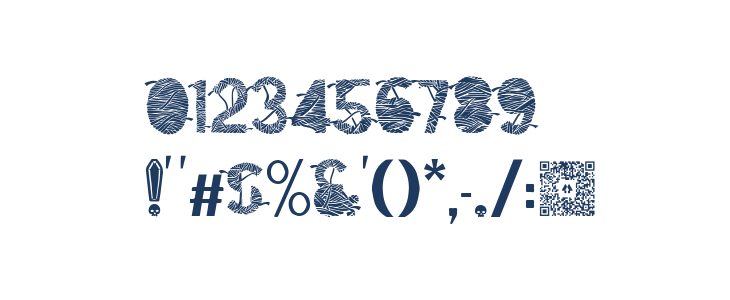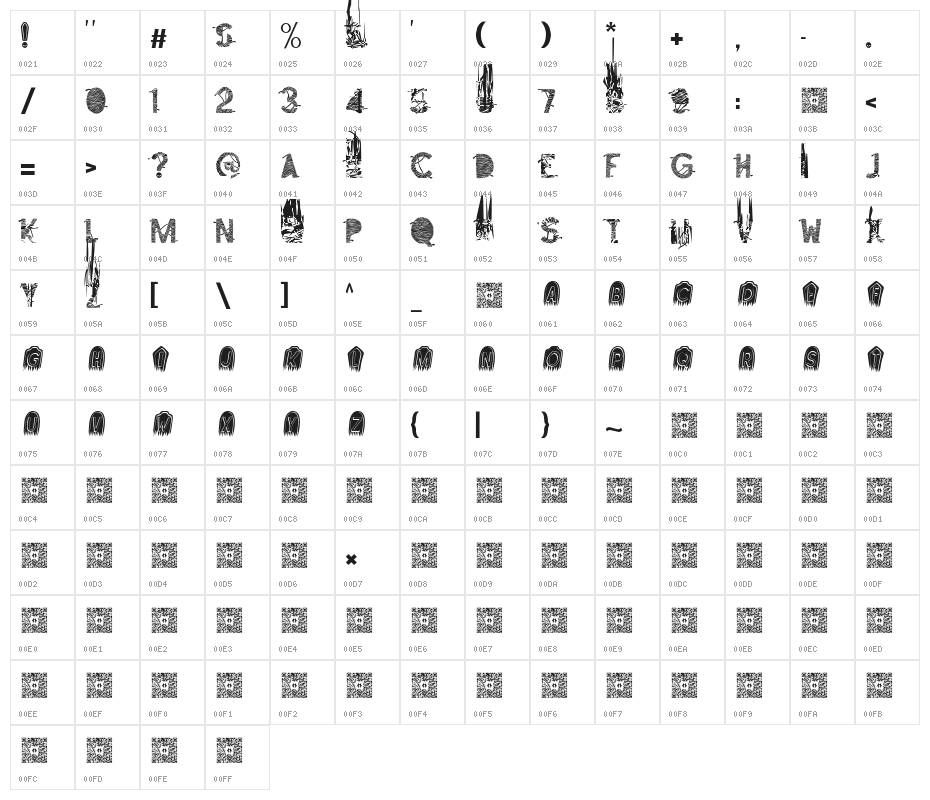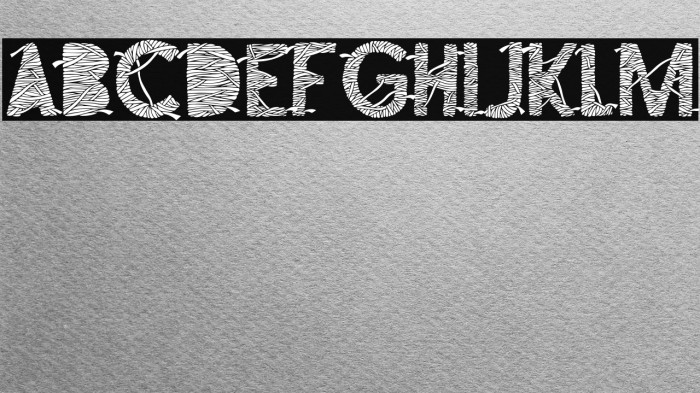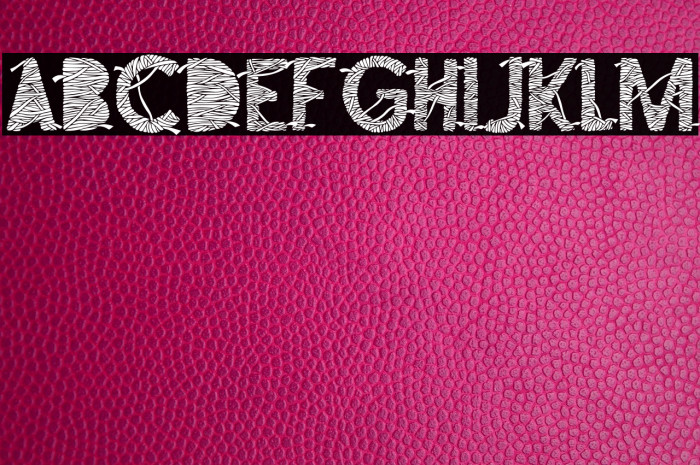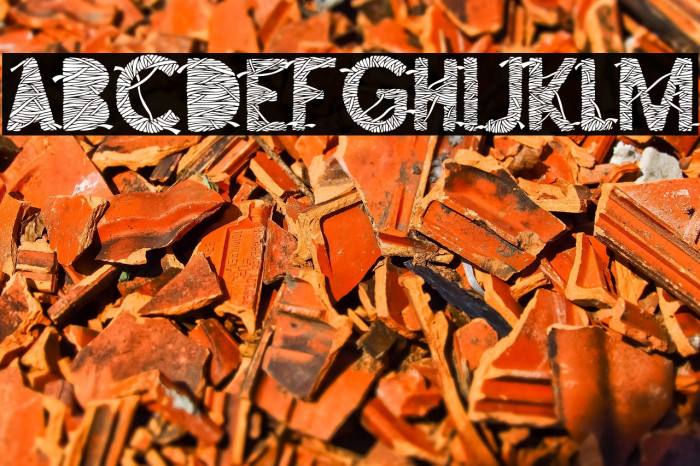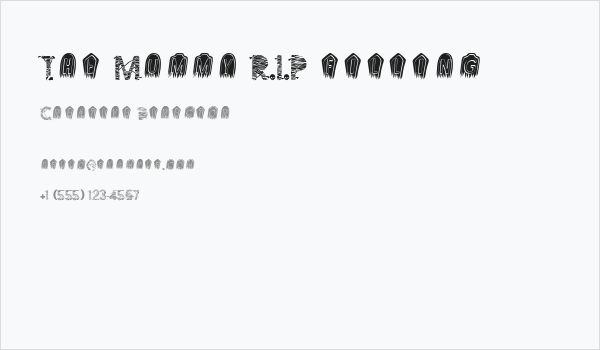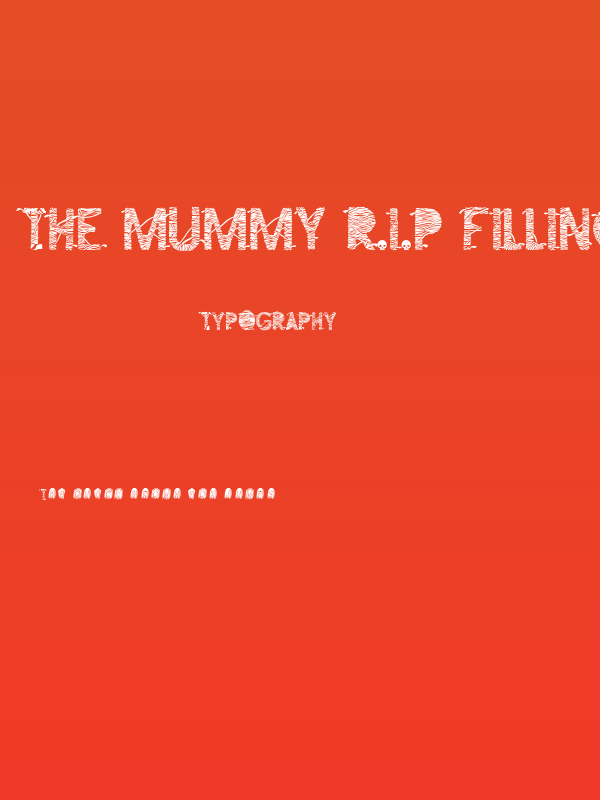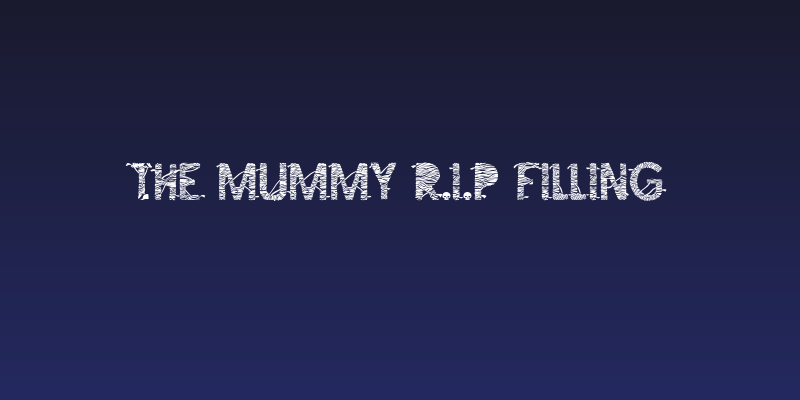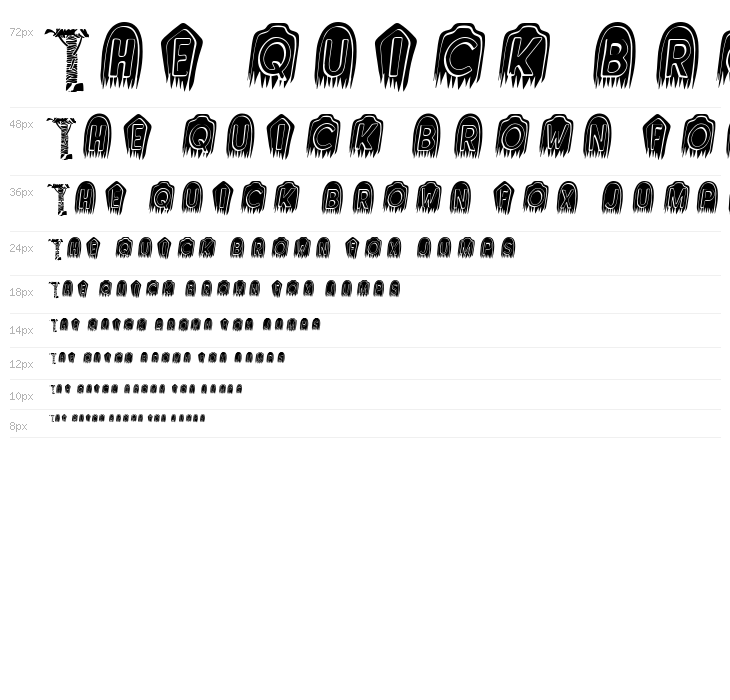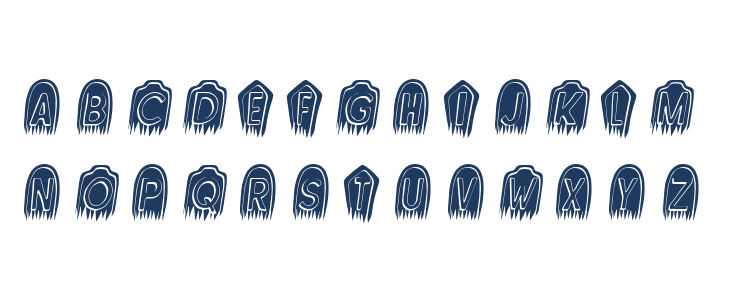
The Mummy R.I.P filling Font
The Mummy R.I.P filling Description
This font features a unique, spooky design reminiscent of ancient Egyptian themes, with a textured, bandage-like appearance that evokes the imagery of mummies. The uppercase letters are bold and striking, with jagged edges and a layered effect that adds depth and dimension. The lowercase letters maintain the same thematic style, with a slightly more compact form. Numbers and special characters are designed with the same eerie aesthetic, making them perfect for Halloween-themed projects or anything requiring a mysterious, ancient vibe. The overall look is both decorative and thematic, capturing the essence of a horror or adventure genre.
Use CaseHeadlines, Posters, Themed Events
Proposed ProjectsIdeal for Halloween invitations, horror movie posters, themed party decorations, or any project needing a mysterious, ancient aesthetic.